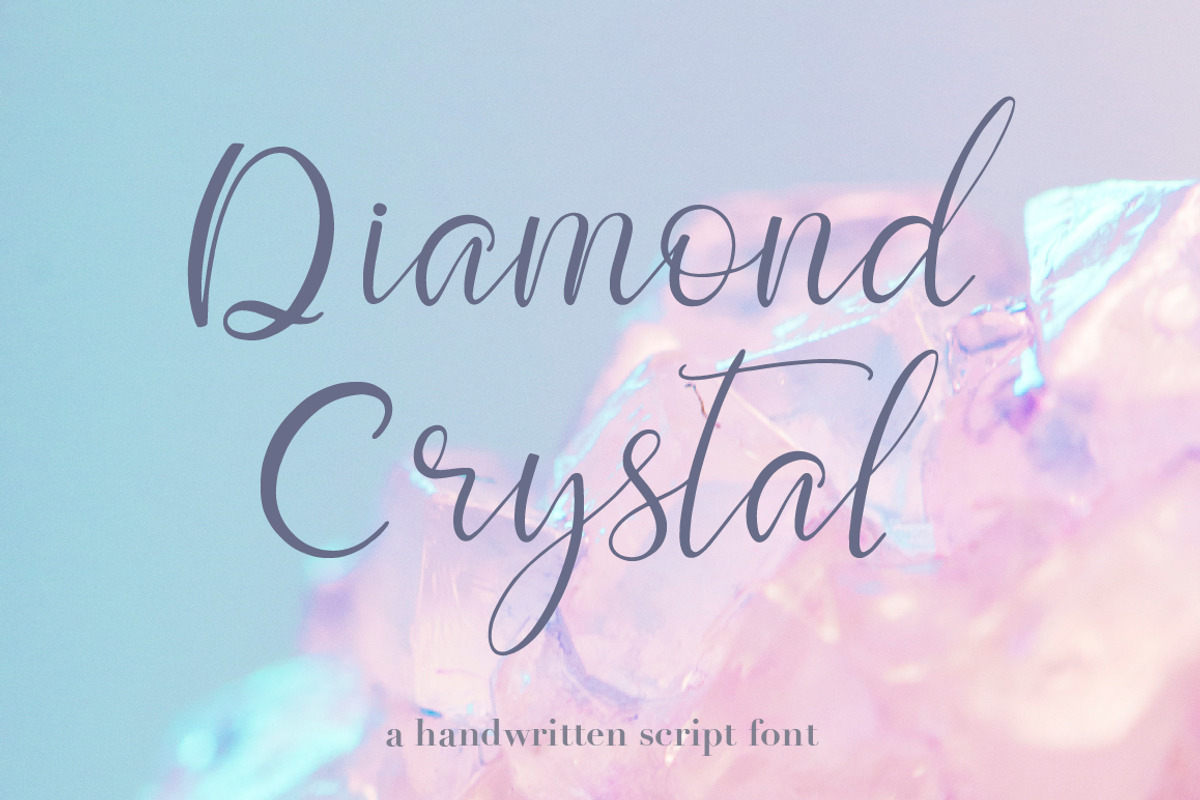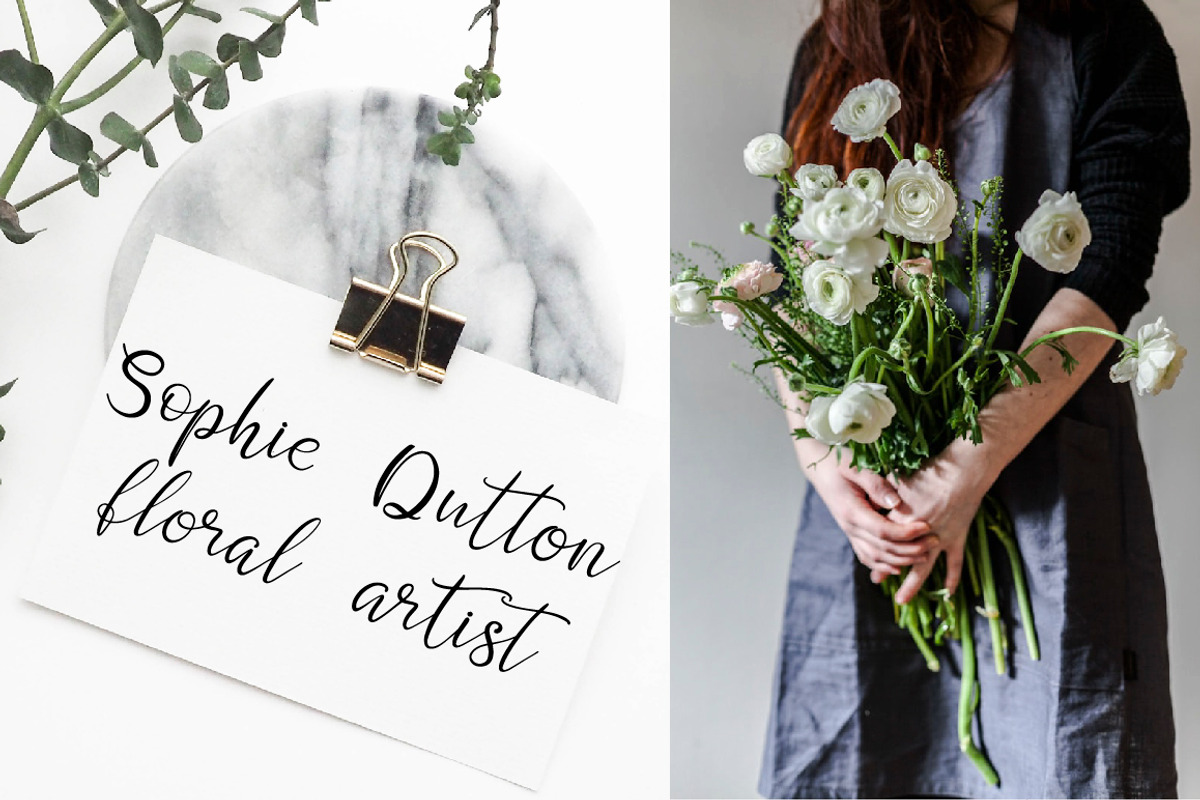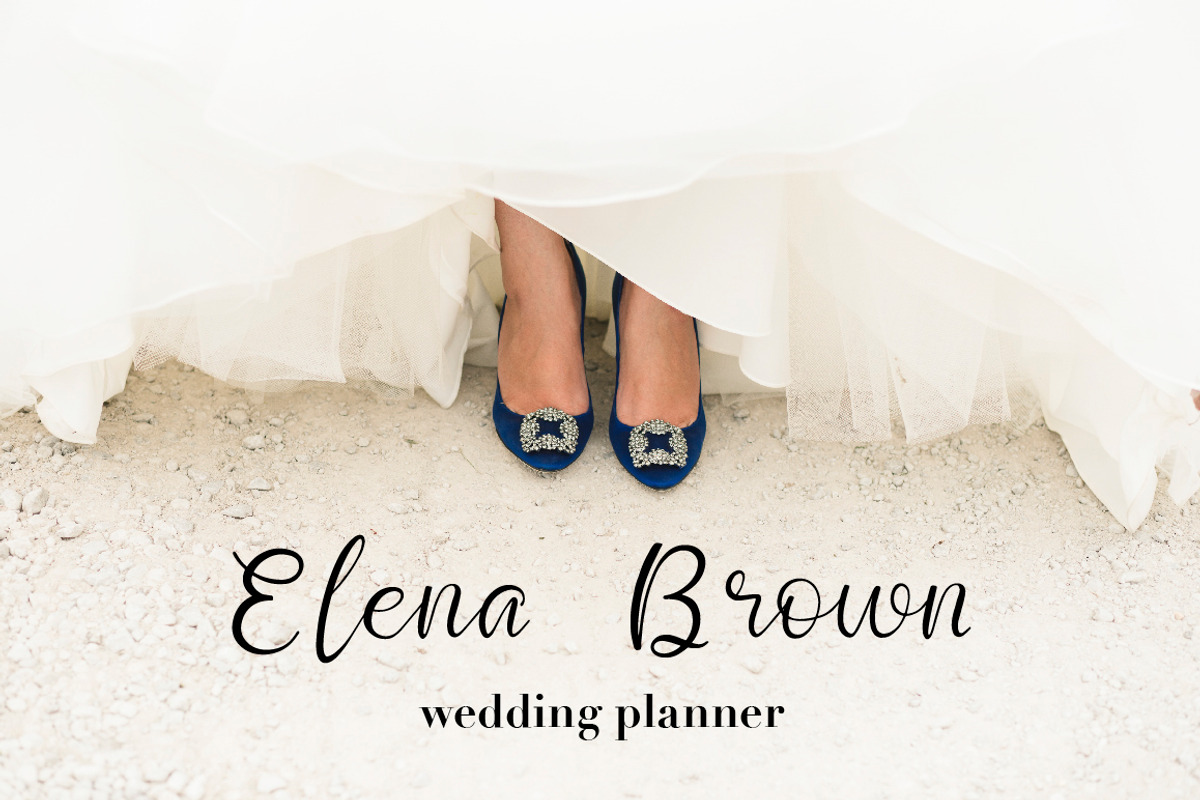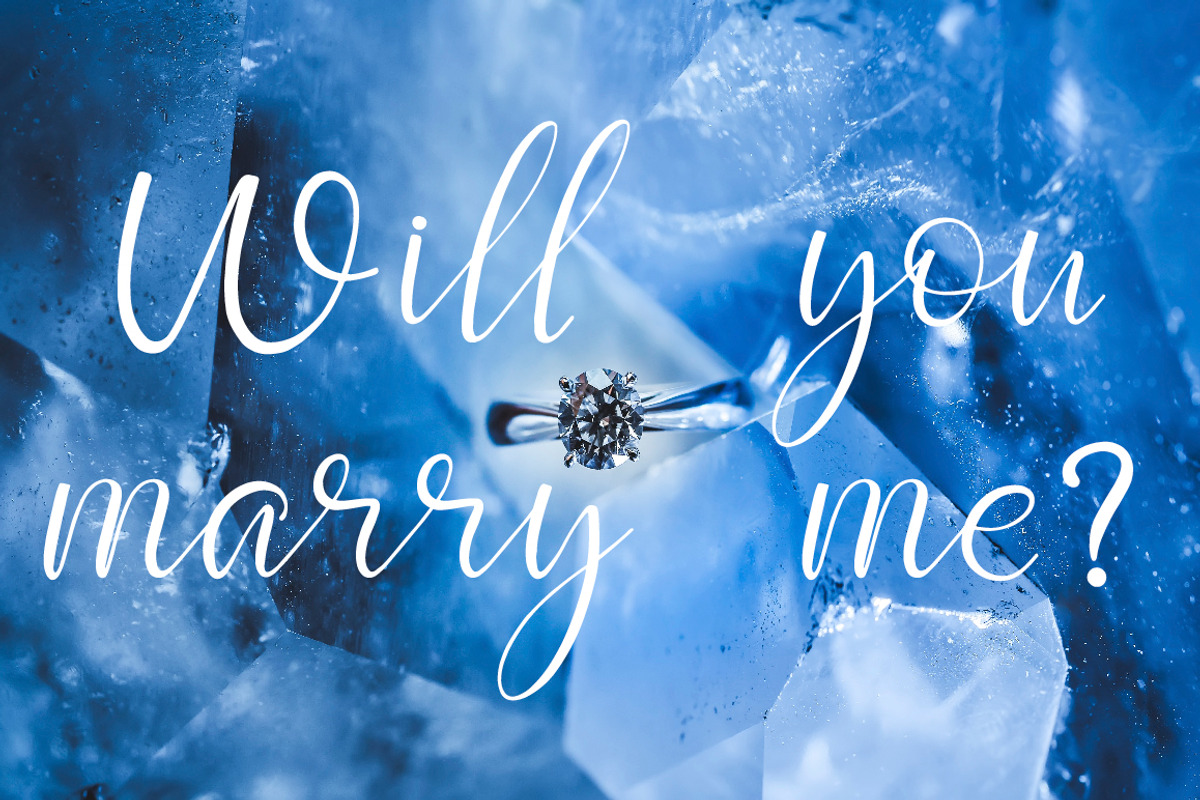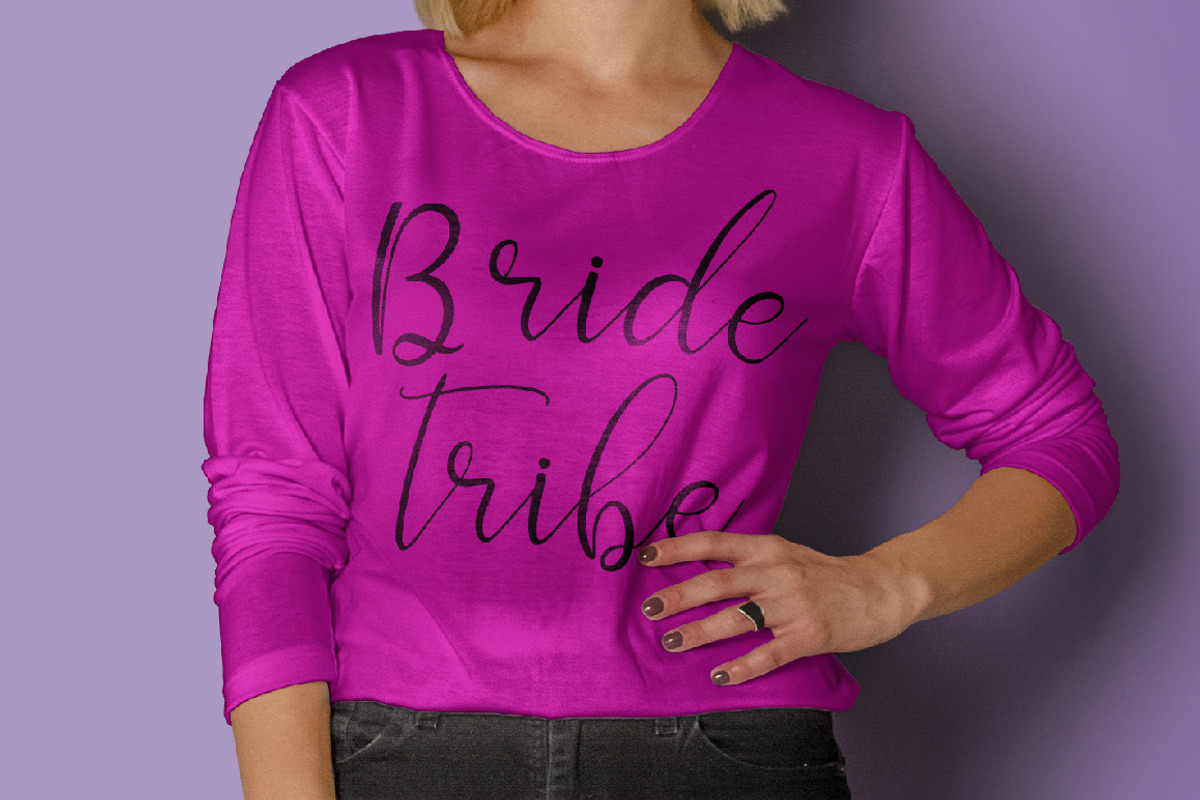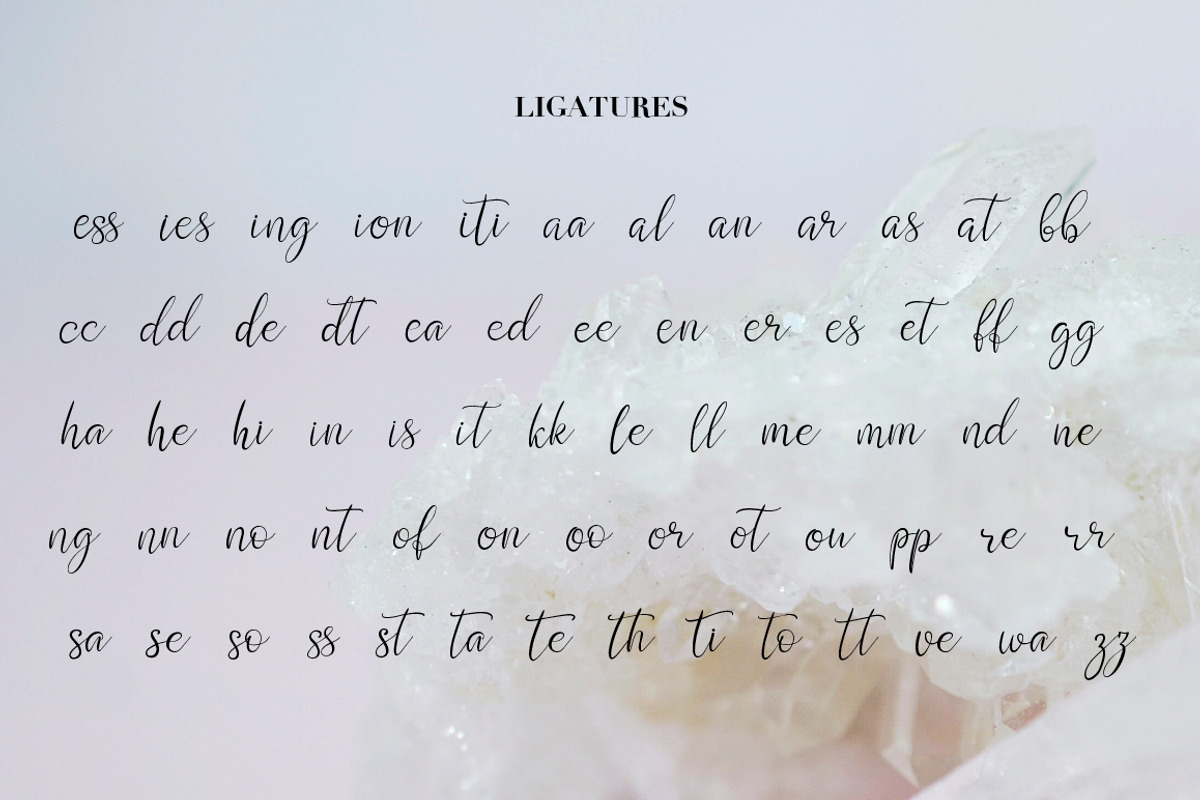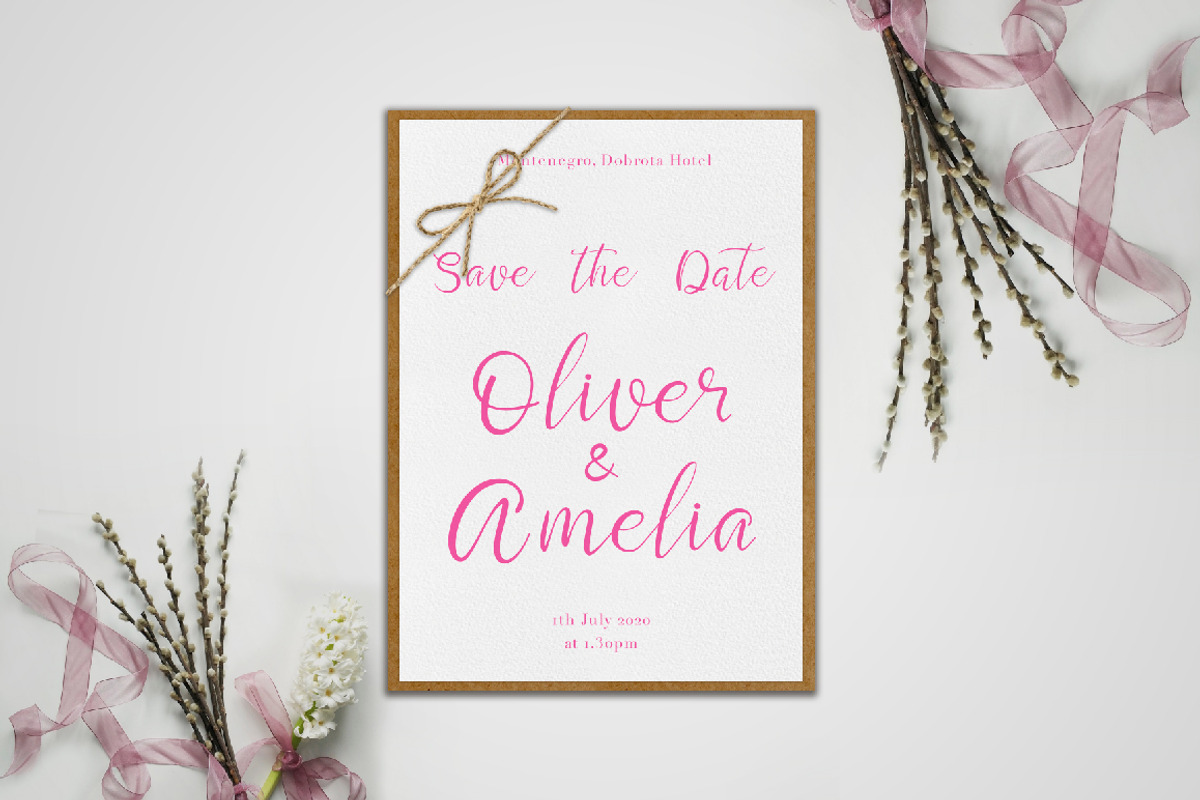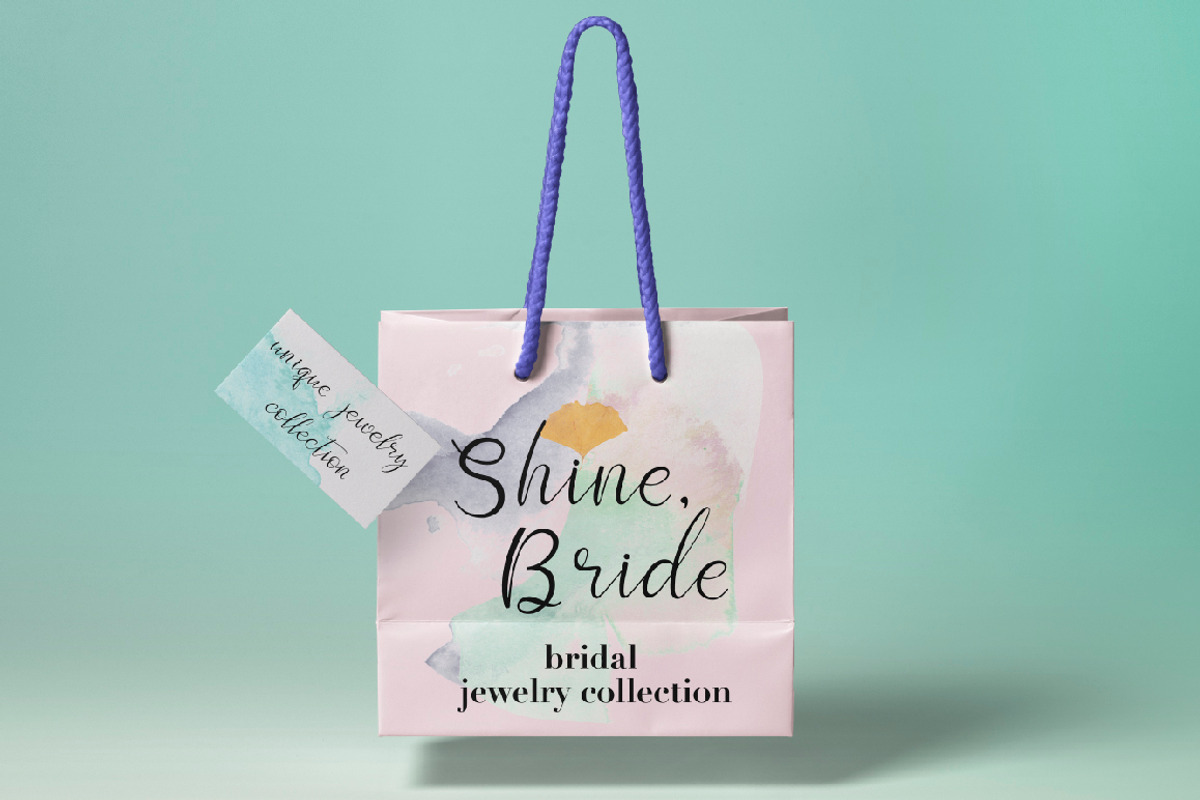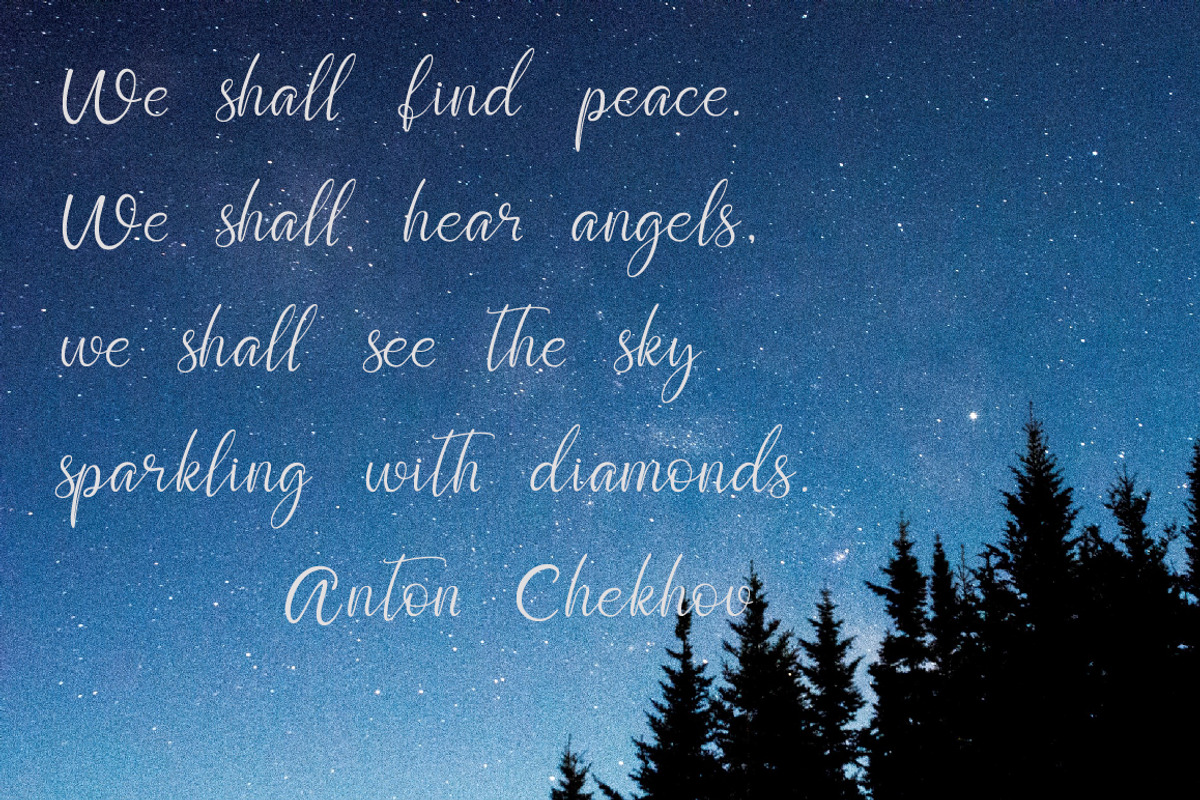
Script font Diamond Crystal
I am happy to introduce my new handwritten script font Diamond Crystal.
This font is made in modern calligraphy style and will look great for branding, fashion and wedding design. Hand-drawn script font Diamond Crystal contains a full set of uppercase and lowercase letters, terminal letters and big set of ligatures helping to imitate handwriting.
Multilingual support is included.
- Terminal letters